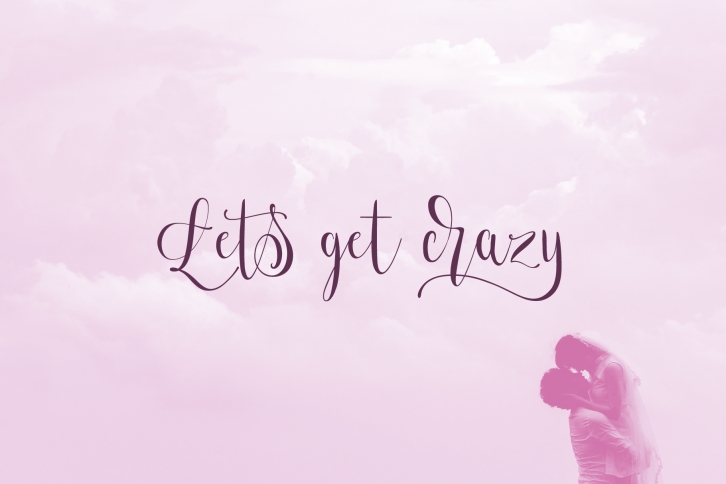
Lets get crazy is a font inspired by modern calligraphy with pronounced swashes, ascending / descending and crazy ear in "r" (that btw you have more ordinary alternates) and so on, challenging the boundaries of reasonable. Lets Get Crazy is a stunning font Duo that will effortlessly inspire any new design ideas! Combine the two unique fonts and turn any creative project into a stand out.